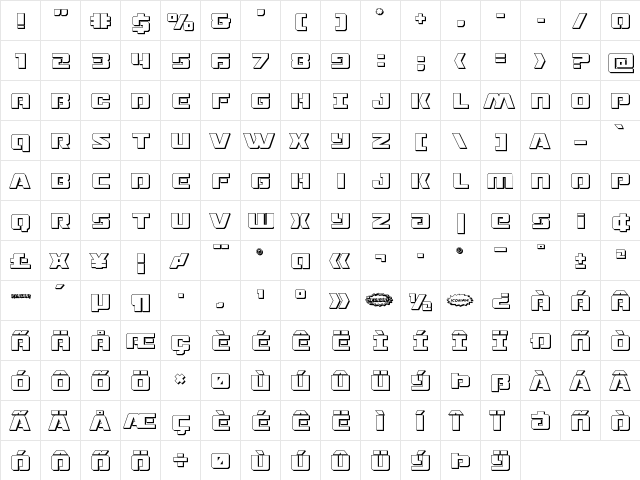
Drone Tracker 3D Regular
Design Context for Drone Tracker 3D Typeface
Drone Tracker 3D is a composed and adaptable typeface that performs quietly and consistently across a wide range of design contexts.